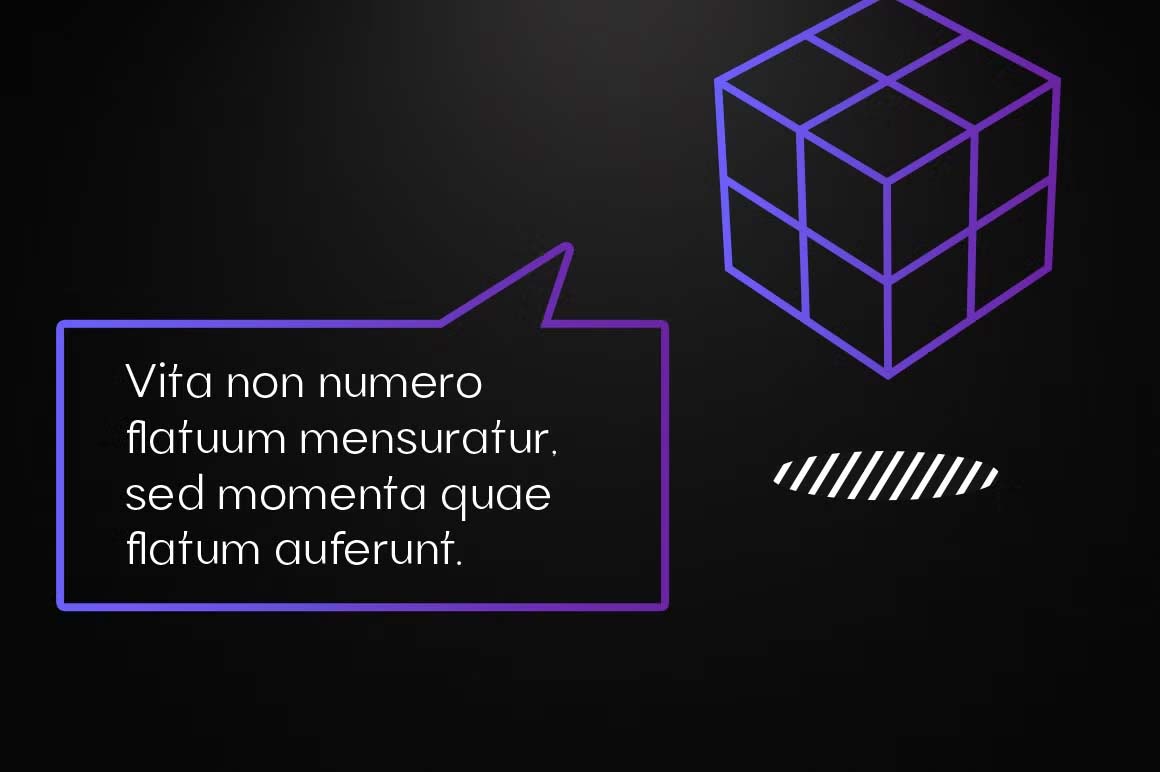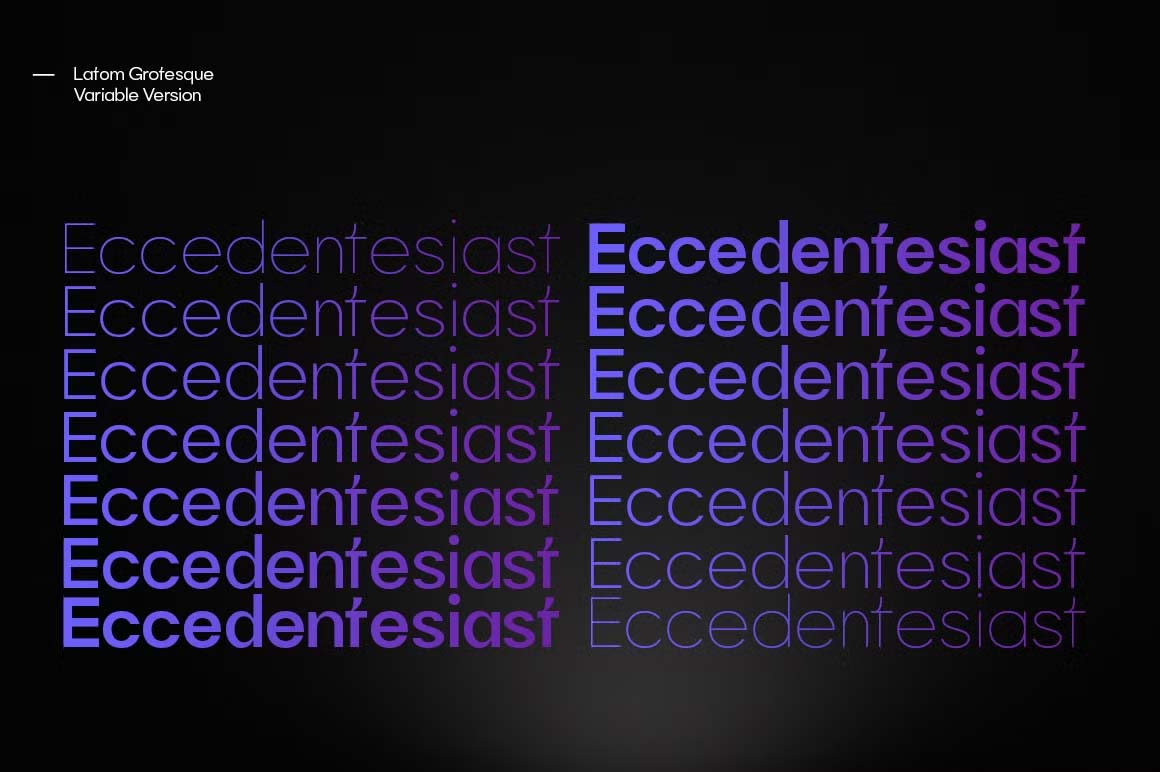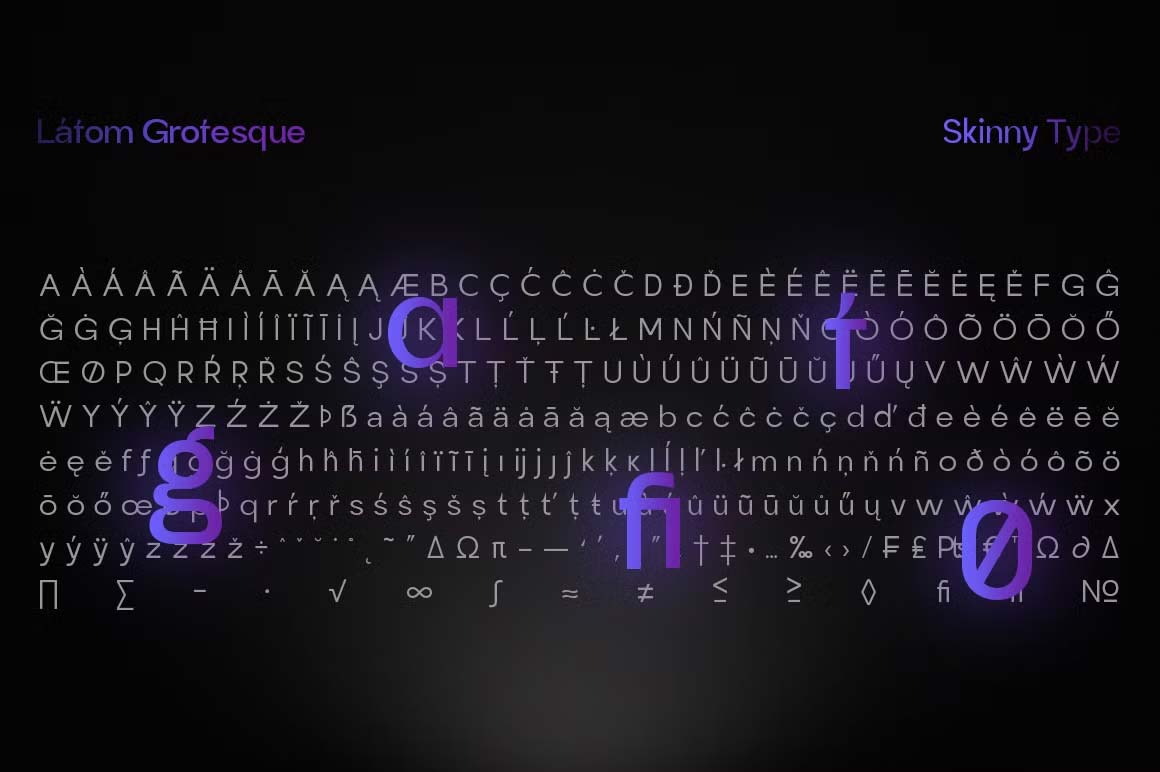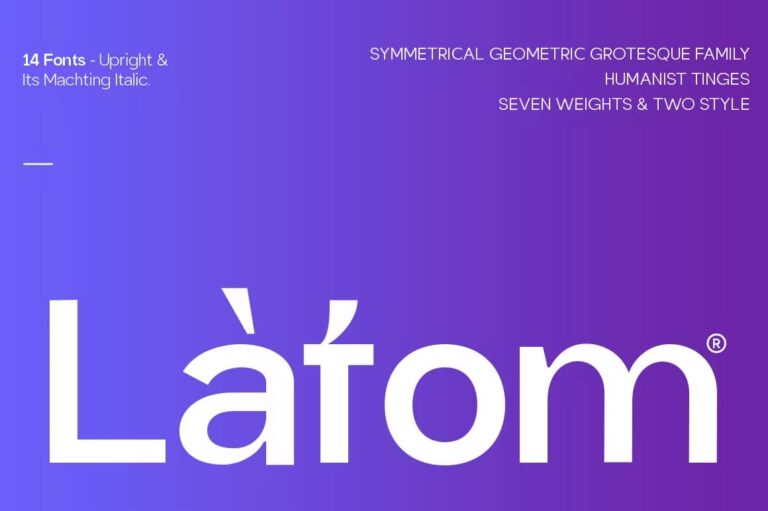
Latom Grotesque is a cool and authentic sans serif font family. Seven weights plus matching italics. Simple geometry with nuance that adds warmth. t’s a perfect choice for branding, magazines, posters, advertising, packaging, headlines, logos, web, print etc.
- – 14 styles: 7 uprights and matching italics.
- – 397 glyphs.
- – Latin based languages.
- – OpenType features, including ligatures.
- – Variable Font Includes.